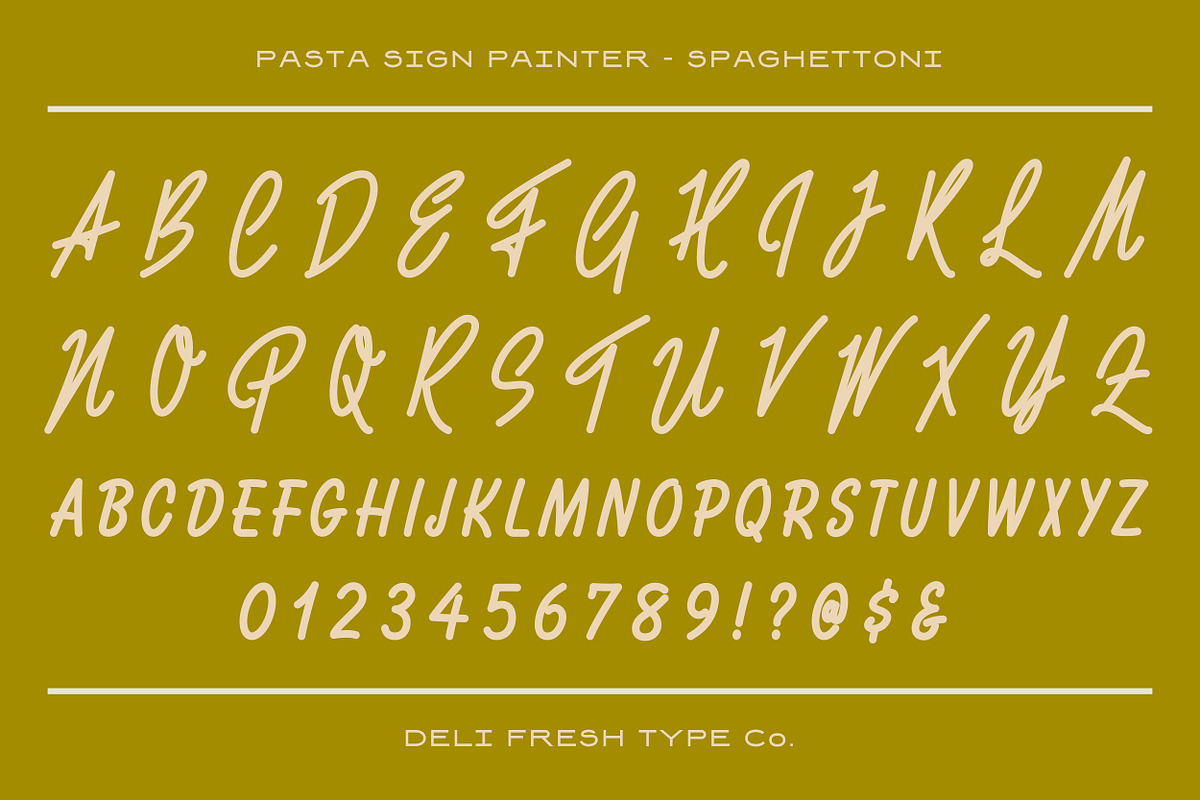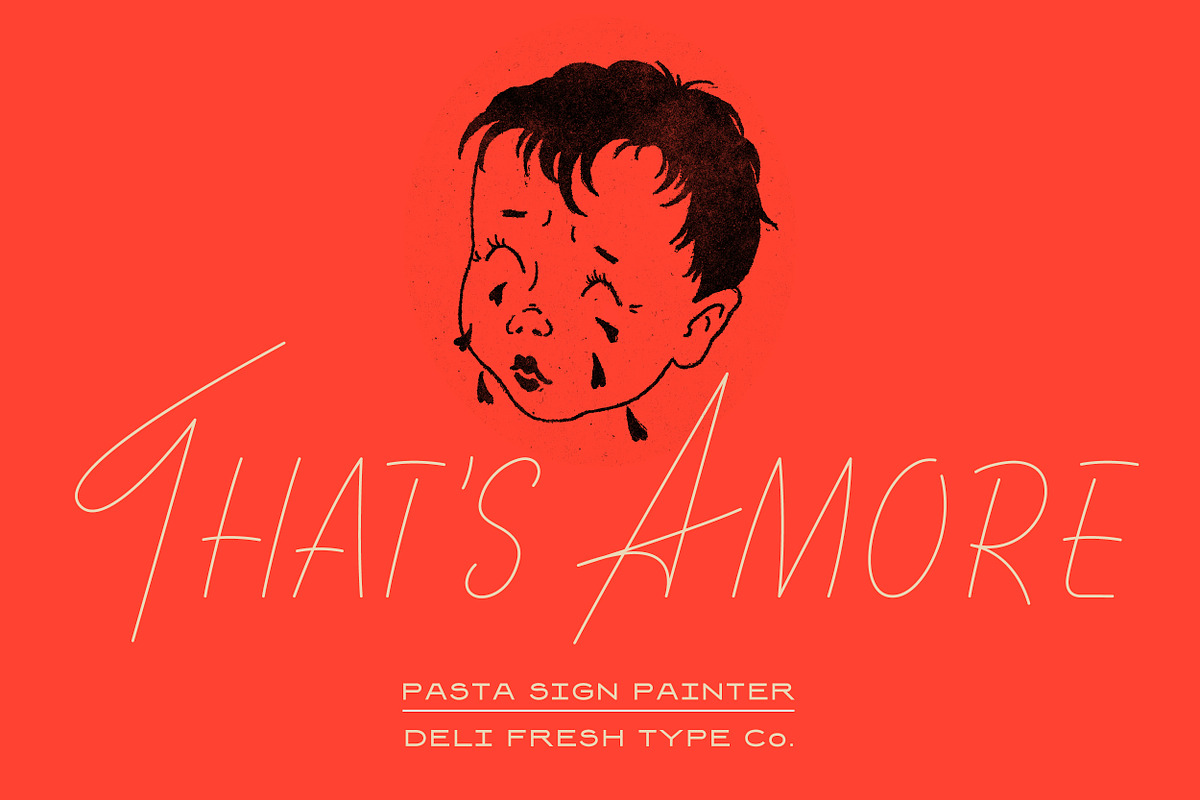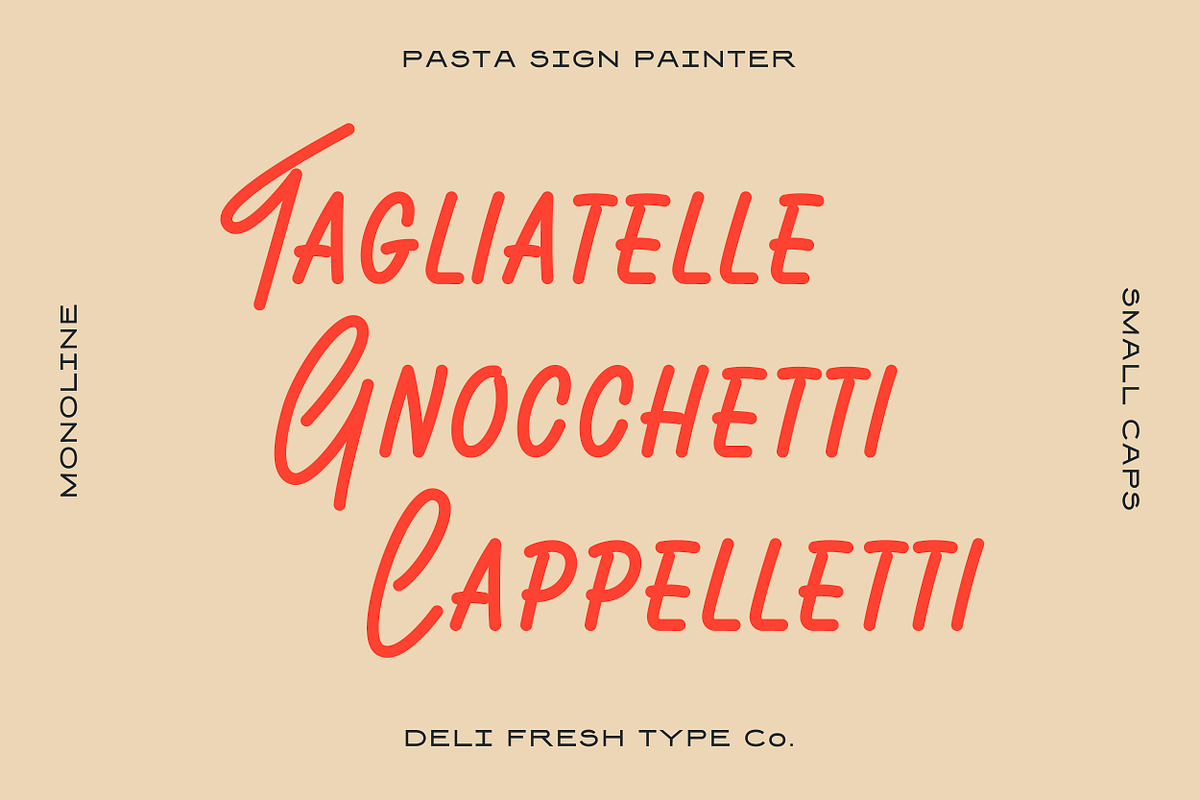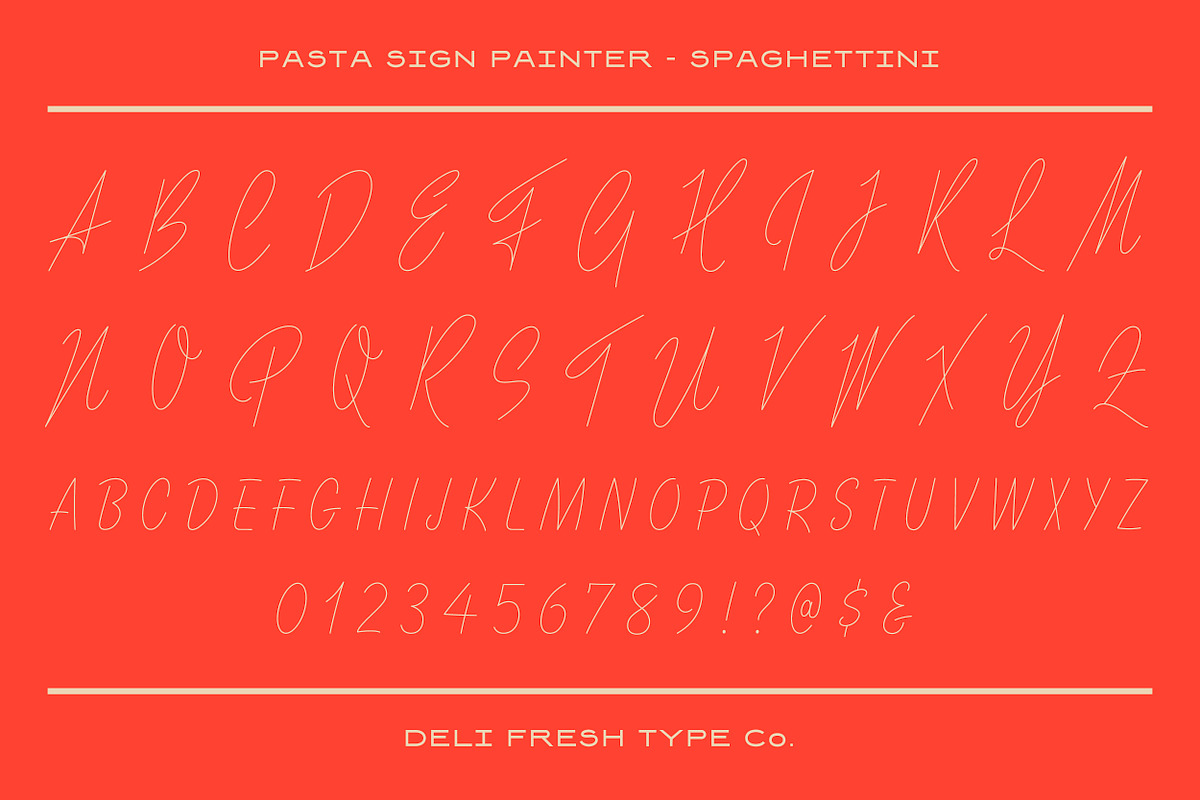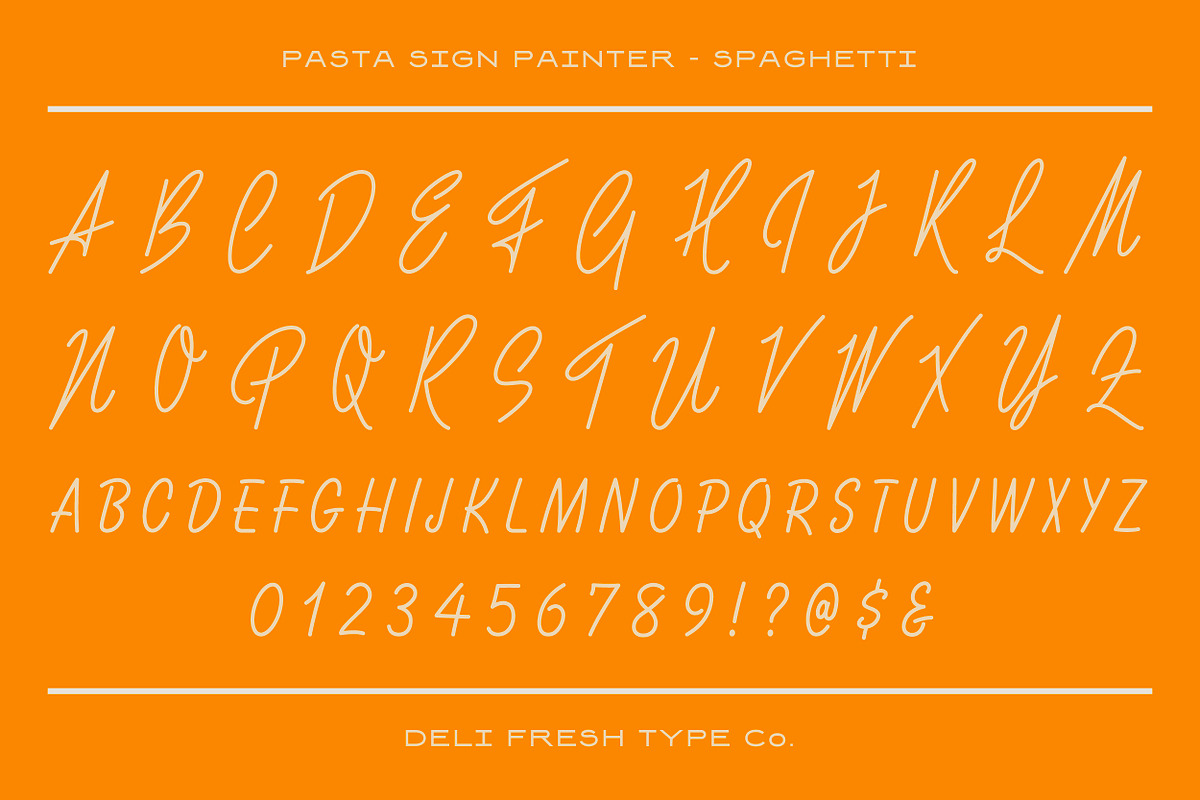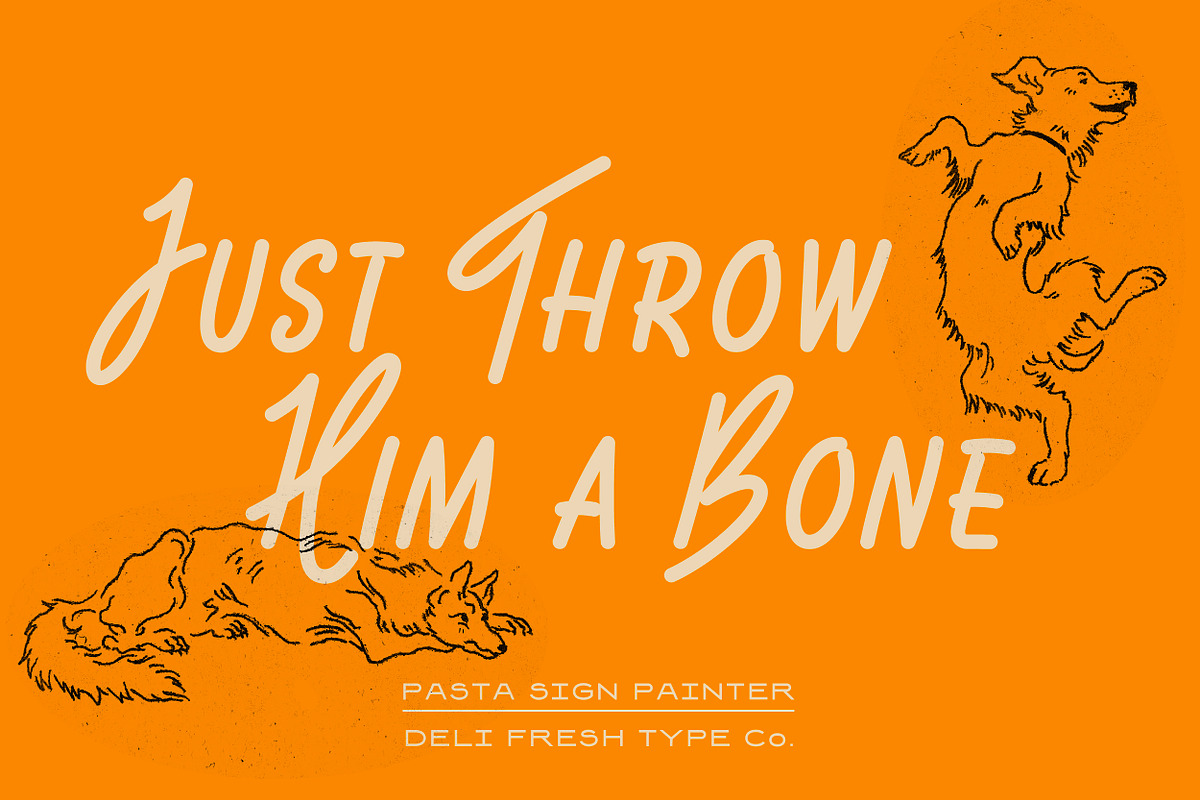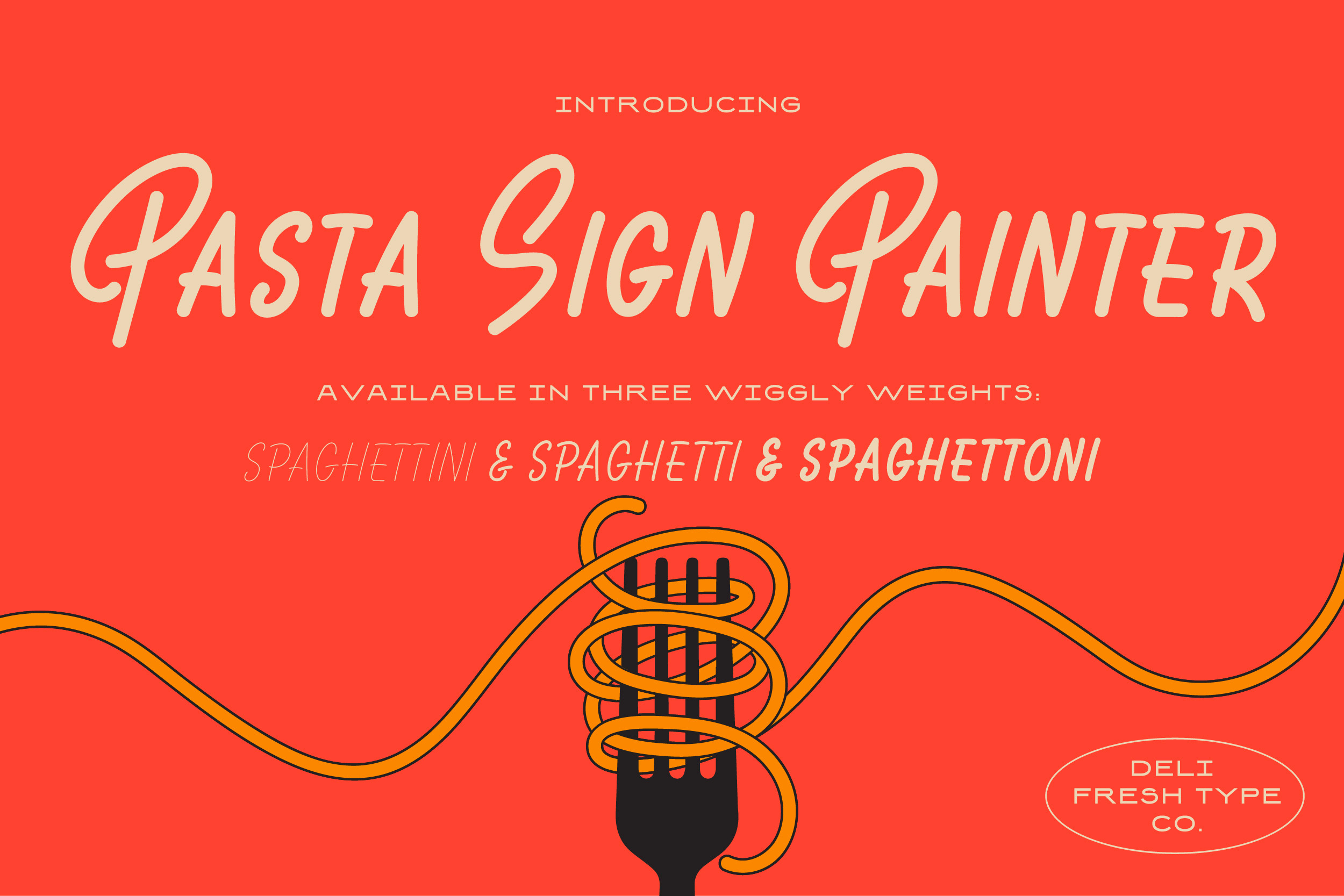
Pasta Sign Painter: Handwritten Font
A handwritten, small caps, monoline font designed with tons of personality and retro flair.
Comes with upper-case and lower-case letterforms, numerals, and a smattering of punctuation marks and special characters in three delicious weights.